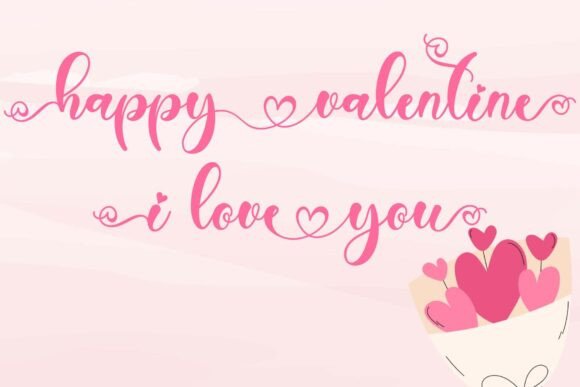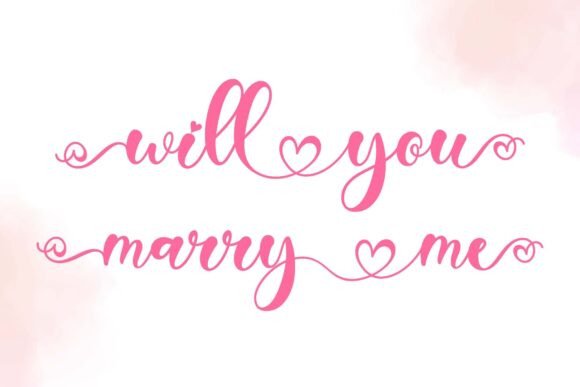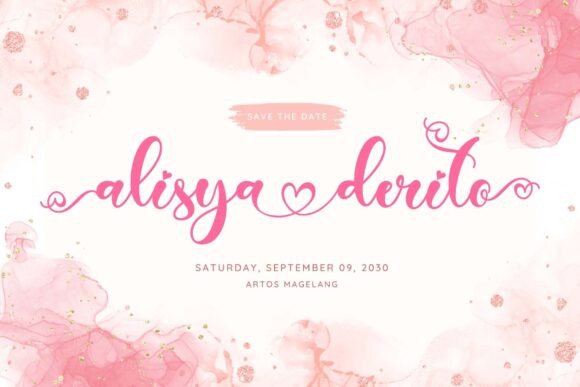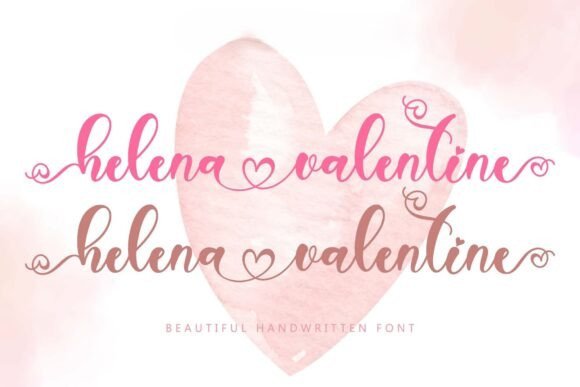
Introduction to Helena Valentine Font
β€œHelena Valentine” is a beautiful and lovely handwritten font.
This font is equipped with uppercase, lowercase, alternates, swashes, titling, numerals, punctuations and multilingual support It is very suitable for use for valentine, wedding, photography, invitations, stickers, posters, prints and others.
Key Features of Helena Valentine Font
Why Choose Helena Valentine Font?
Helena Valentine Font offers exceptional quality and versatility, making it a valuable addition to your design toolkit. Whether you’re creating for personal projects or commercial use, Helena Valentine Font delivers professional results.